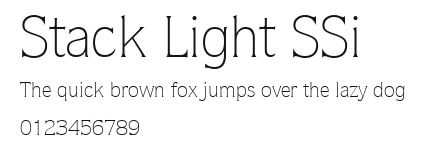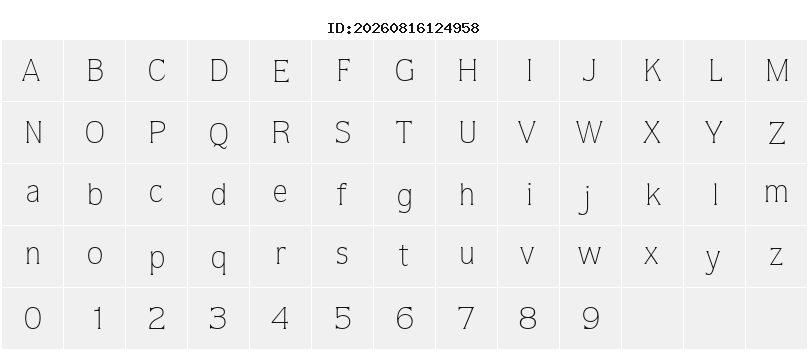
• Font Name: Stack Light SSi
• Font Style: Light
• Full Font Name: Stack Light SSi Light
About Stack Light SSi.ttf
Stack Light SSi.ttf is a modern, elegant sans-serif font designed for ultimate readability and visual harmony. Perfect for branding, headlines, web design, and print materials.